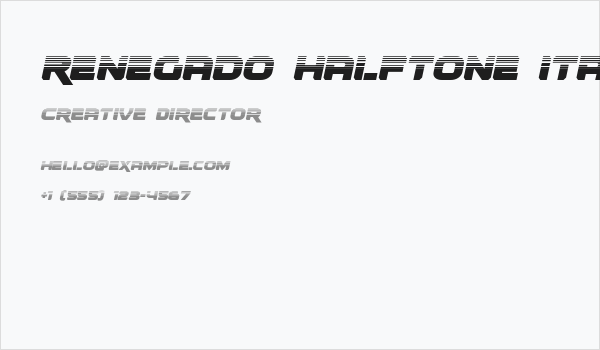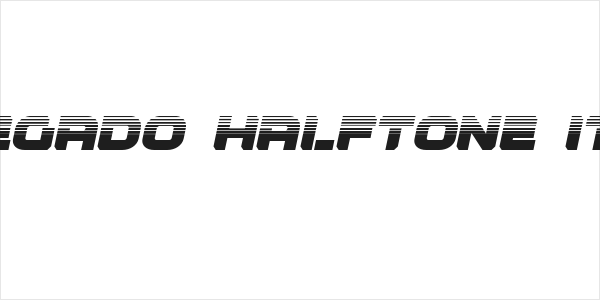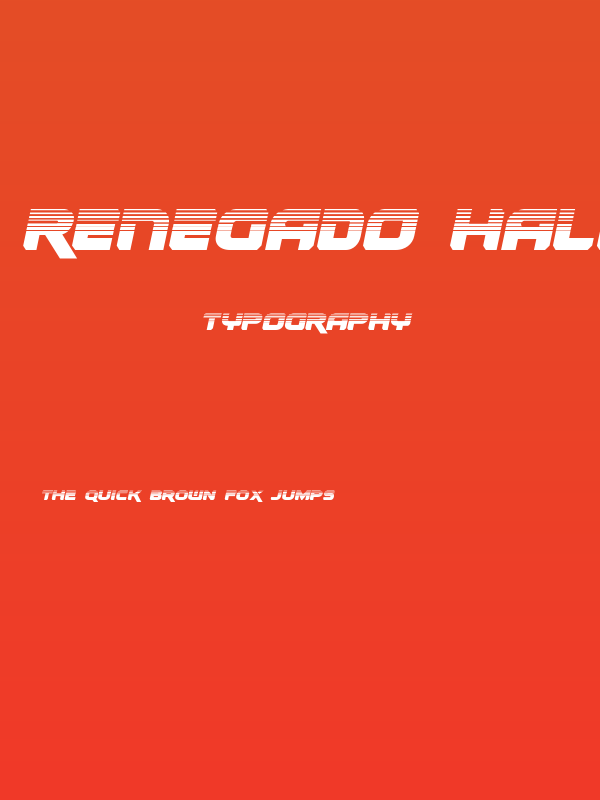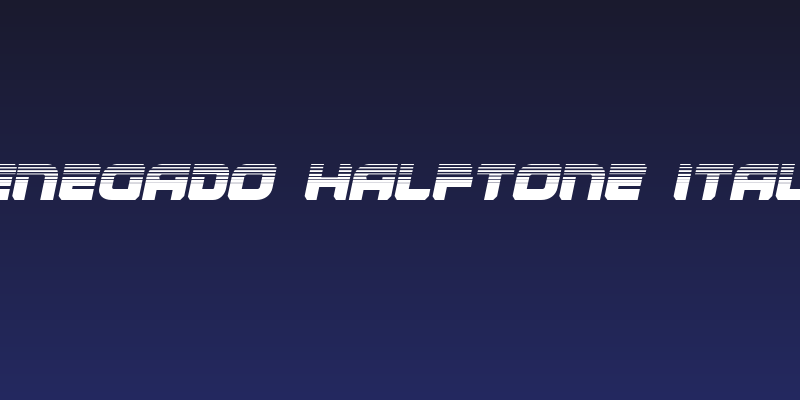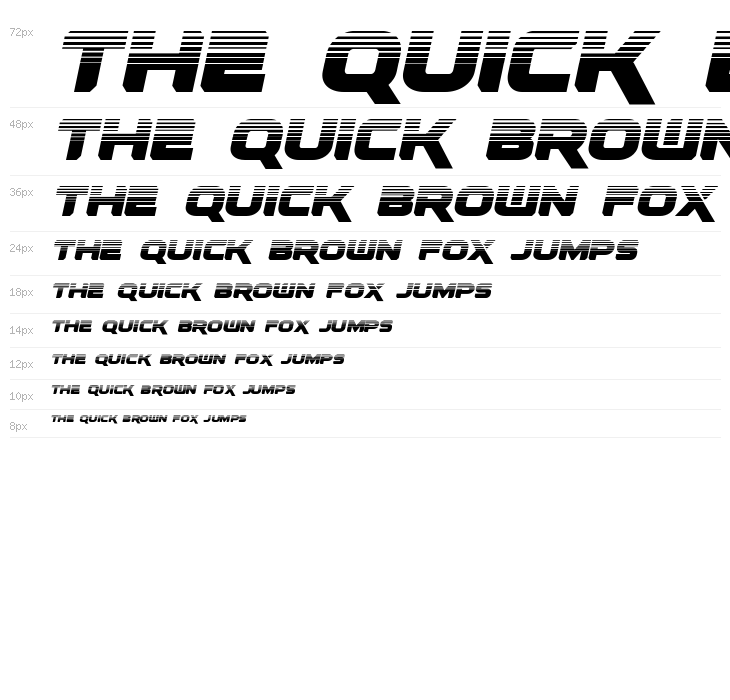
Renegado Halftone Italic Font
Renegado Halftone Italic Description
This font features a bold, italicized style with a distinct halftone effect that gives it a dynamic and futuristic appearance. The characters are designed with a series of horizontal lines that create a sense of movement and energy. The uppercase and lowercase letters maintain a consistent style, with sharp angles and a slightly condensed form. The numbers and special characters follow the same design principles, ensuring uniformity across all glyphs. This font is ideal for projects that require a modern and edgy look, such as sports branding, tech-related designs, or any creative work that aims to stand out.
| Overall Style | Futuristic, Dynamic |
| Proposed Projects | Ideal for sports branding, tech-related designs, futuristic themes, and creative projects needing a bold statement. |